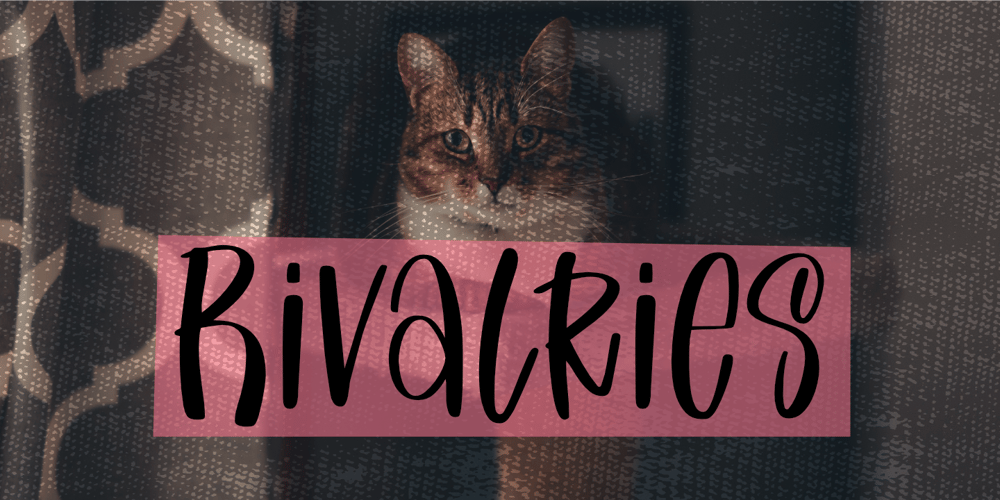
Rivalries
Rivalries Font Family was designed by Aldy Sidik and published by Epiclinez. Rivalries contains 1 styles and family package options. Rivalries is a font for anyone who wants to use a font that’s endearing, cute, and friendly. It’s the perfect font for children’s products, quotes, or any time you need that little extra happiness.So what’s included : Basic Latin Uppercase and Lowercase Numbers, symbols, and punctuations Multilingual Support. Accented Characters : ÀÁÂÃÄÅÆÇÈÉÊËÌÍÎÏÑÒÓÔÕÖØŒŠÙÚÛÜŸÝŽàáâãäåæçèéêëìíîïñòóôõöøœšùúûüýÿžß PUA Encoded and fully accessible without additional design software Simple Installations works on PC & Mac Thank You!